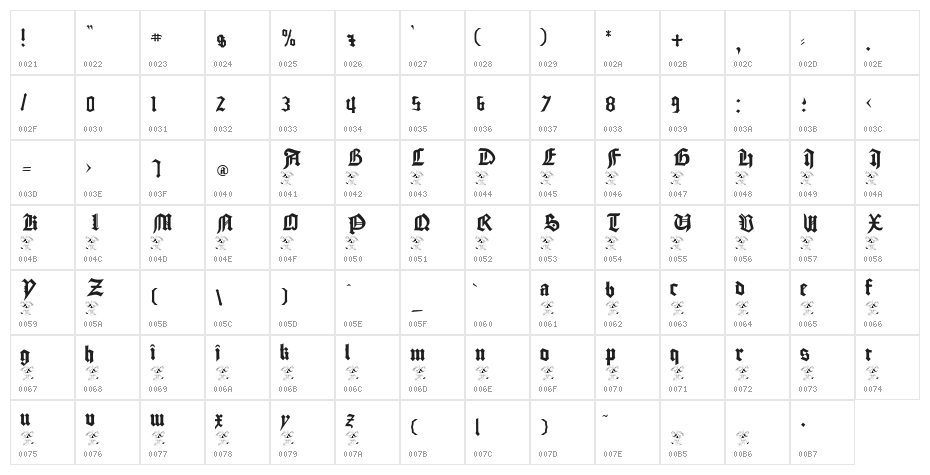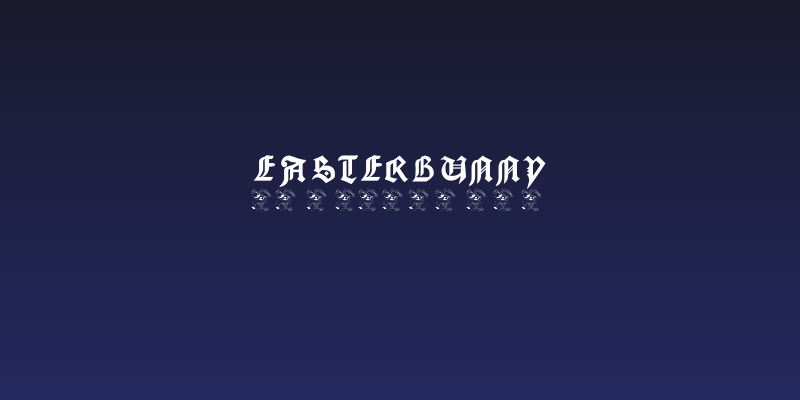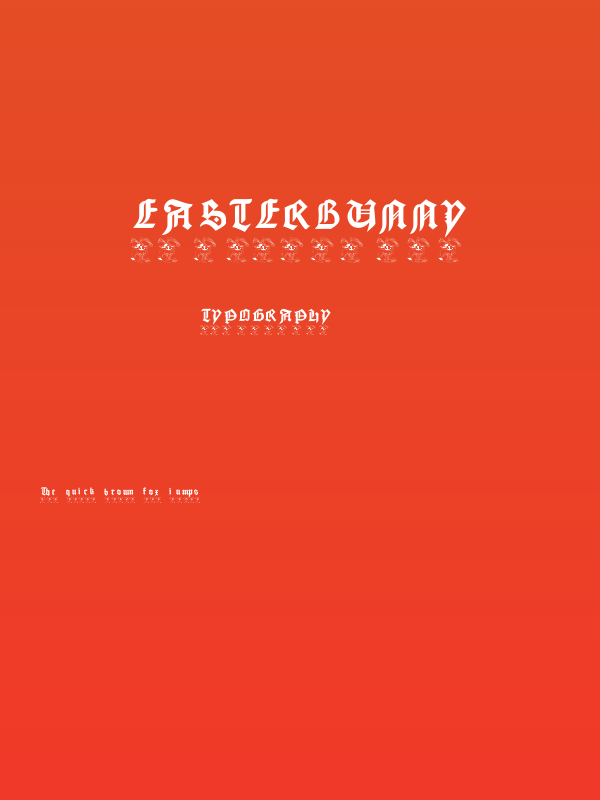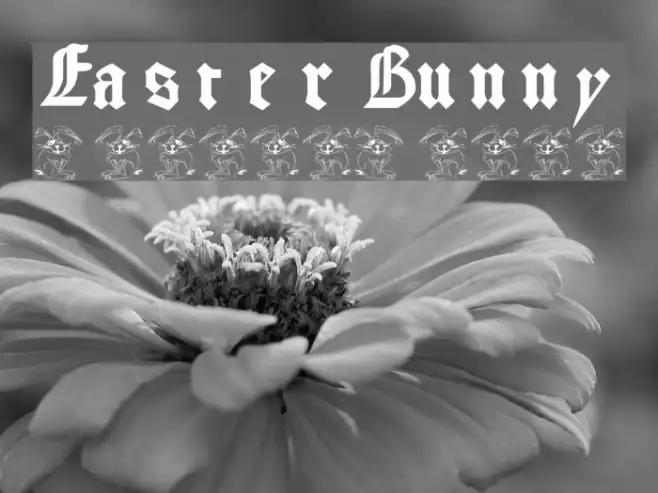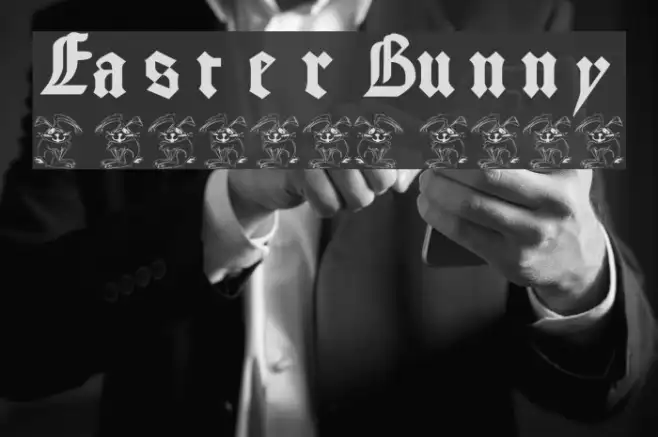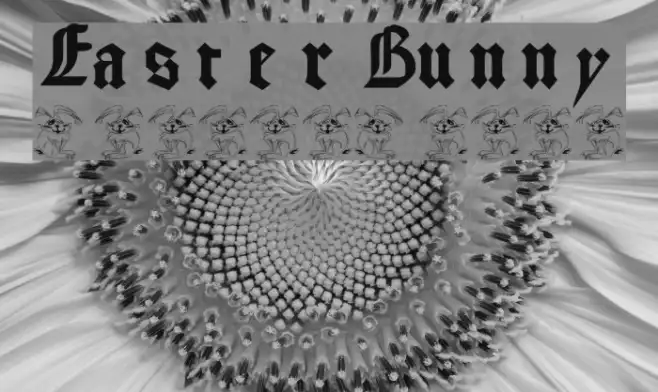
EasterBunny Font
EasterBunny Description
This font exhibits a classic blackletter style, characterized by its ornate and intricate design. The letters are bold and angular, with sharp edges and dramatic flourishes that give it a medieval appearance. Each character is distinct, with a high level of detail that adds to its decorative nature. The uppercase letters are particularly elaborate, featuring additional strokes and embellishments. The lowercase letters maintain the same level of intricacy, ensuring consistency throughout the typeface. The numbers and special characters are designed to match the overall aesthetic, making this font suitable for projects that require a historical or gothic touch.
| Use Case | Headlines, Logos, Decorative text |
| Proposed Projects | Ideal for historical documents, gothic-themed designs, book covers, and decorative posters. |